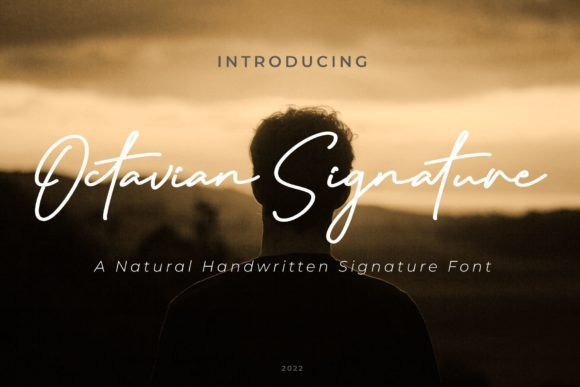
In a realm where words dance with grace, where letters intertwine, Octavian Signature emerges as a script font of enthralling allure. Its delicate strokes, reminiscent of a lover's whispers, caress your designs with a touch of elegance and charm. Crafted with meticulous attention to detail, Octavian Signature bestows upon your creations a captivating aura that transcends the ordinary, leaving an indelible imprint on the hearts of your audience.
With its innate versatility, Octavian Signature effortlessly adapts to a symphony of design endeavors, from the quaint charm of greeting cards to the bold presence of headlines. Its presence adds a spark of romance and allure, transforming mundane texts into captivating narratives. Whether you seek to craft heartfelt invitations, ignite passion in your branding, or elevate your social media presence, Octavian Signature stands as your steadfast companion, ready to weave its magic into your digital tapestry.
Beyond its aesthetic prowess, Octavian Signature is a font of remarkable practicality. Encoded with PUA, it grants you effortless access to a treasure trove of glyphs and ligatures, empowering you to unleash your creativity without boundaries. Seamlessly integrate diverse characters and harmonious letter combinations, enhancing your designs with intricate details that captivate and inspire.
Embrace Octavian Signature, and embark on a creative odyssey where imagination knows no bounds. Let your words dance with newfound grace, your designs exude timeless elegance, and your audience succumb to the allure of your captivating creations. Octavian Signature awaits, ready to ignite your design journey and transform your visions into tangible masterpieces.